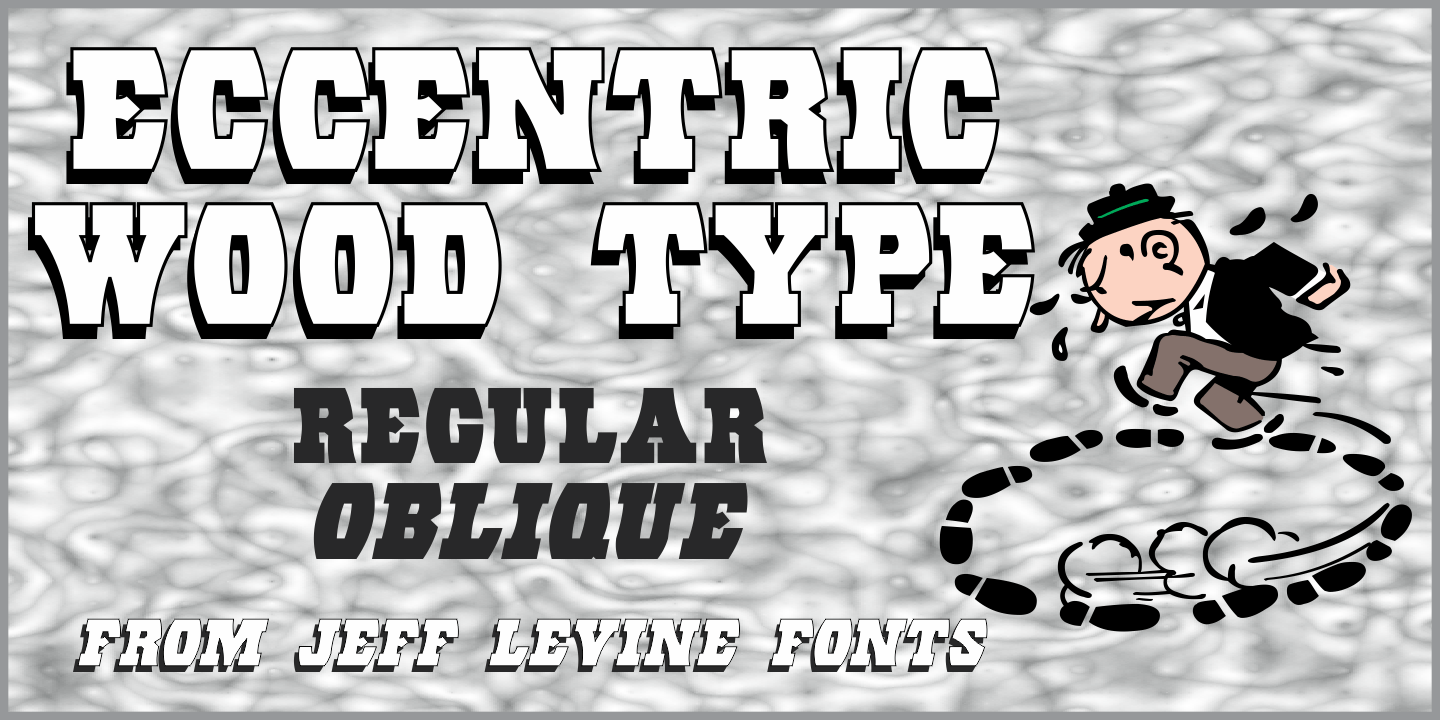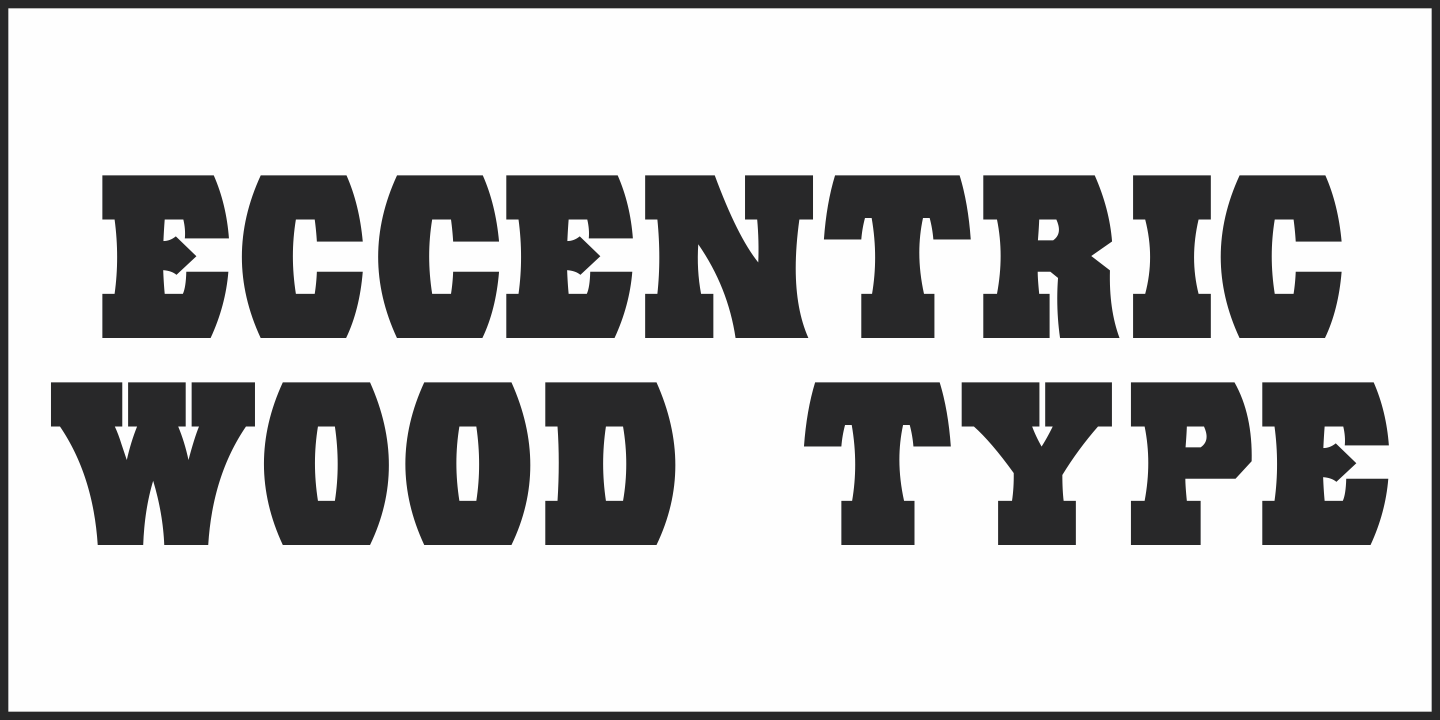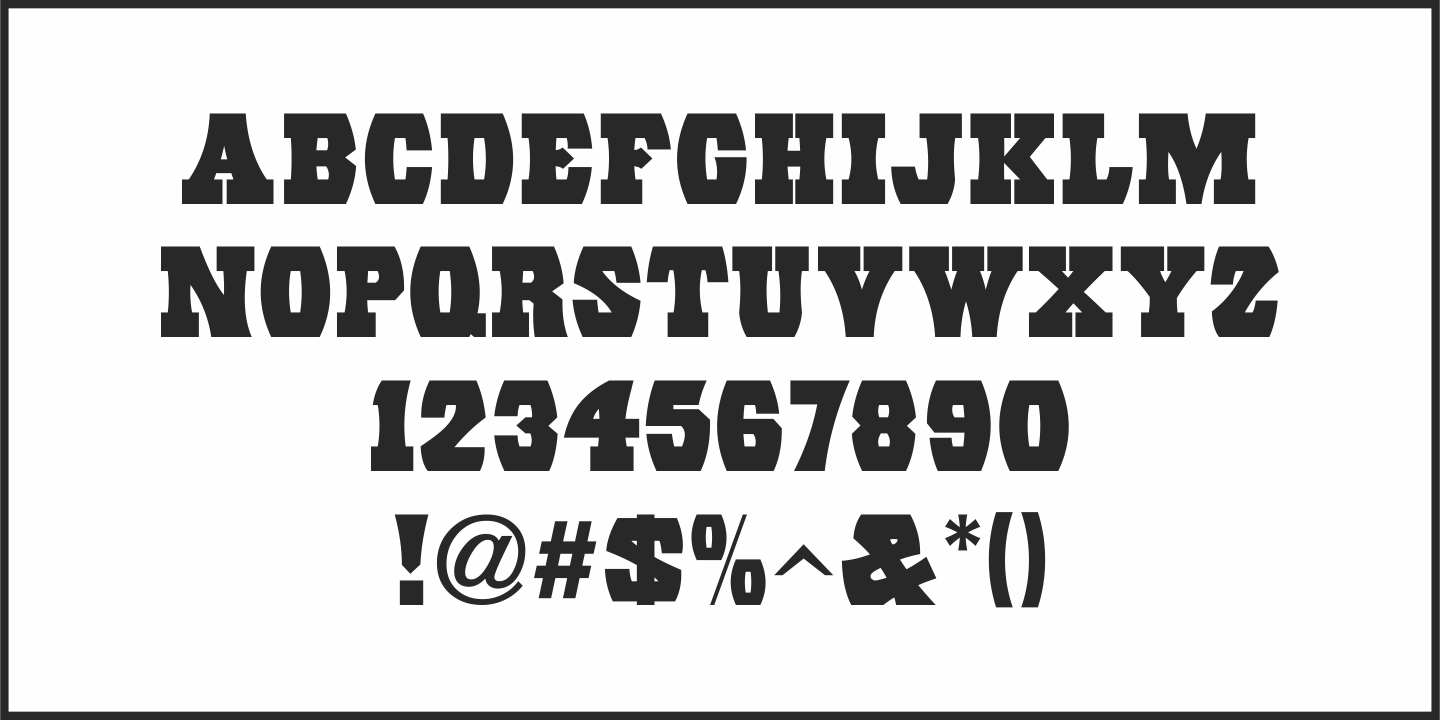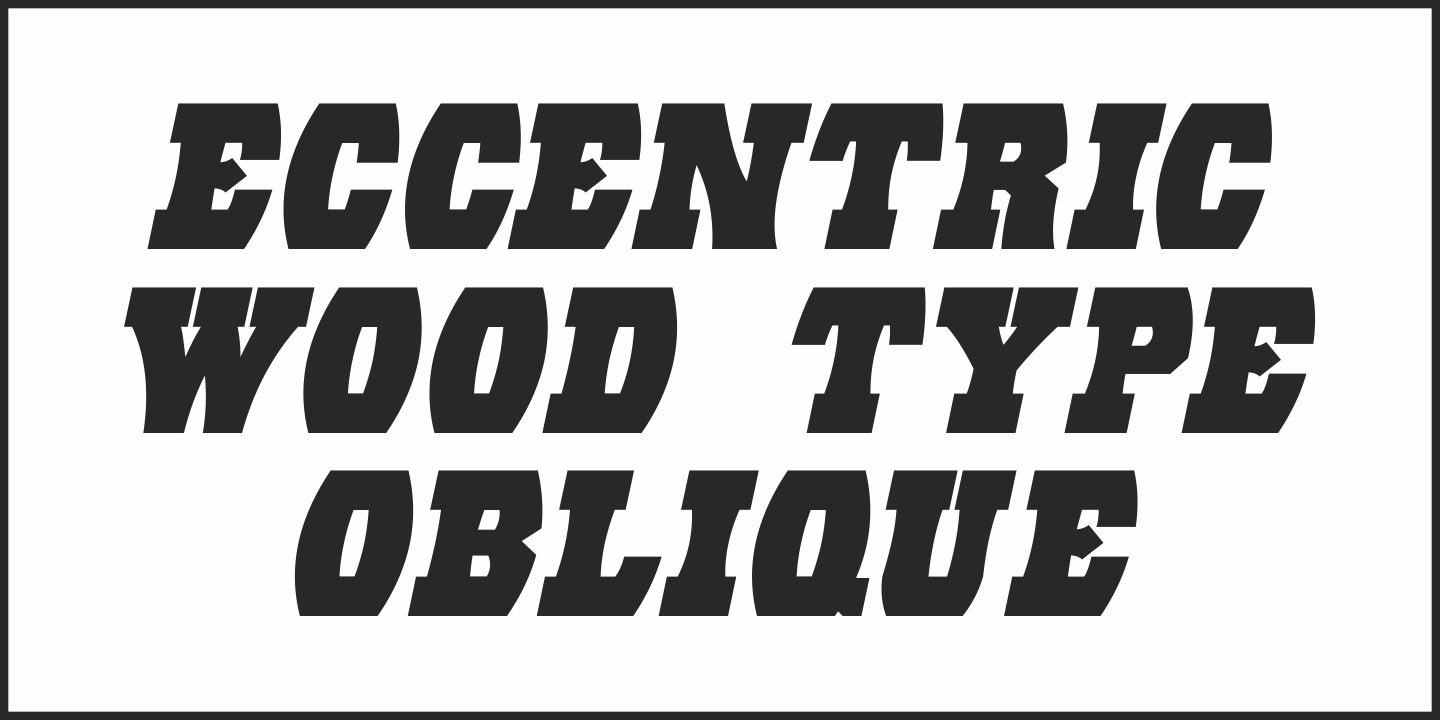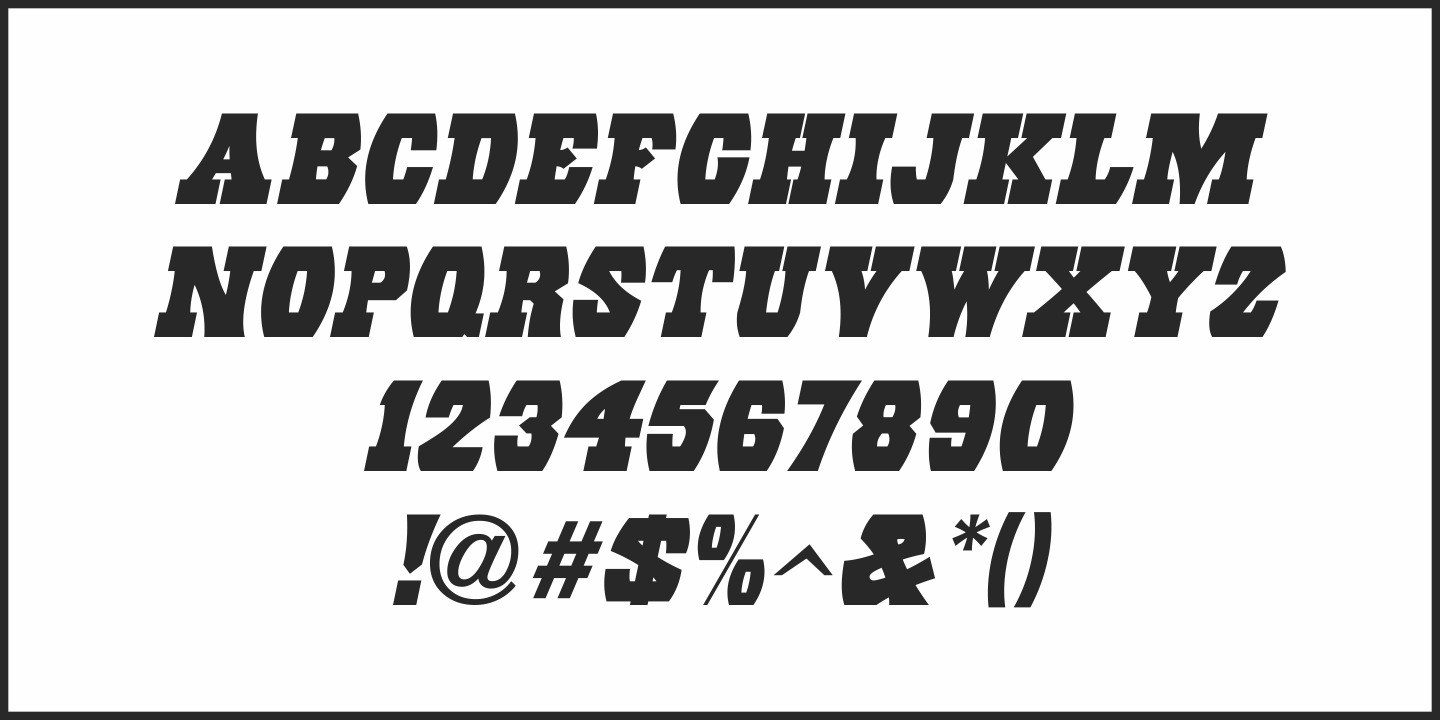
Eccentric Wood Type
An online display of pages from a book on wood type fonts provided an example of a bold, eccentric slab serif design with unusual curves and letter shapes.
This font’s eccentricities became the basis for its name, Eccentric Wood Type JNL – which is available in both regular and oblique versions.